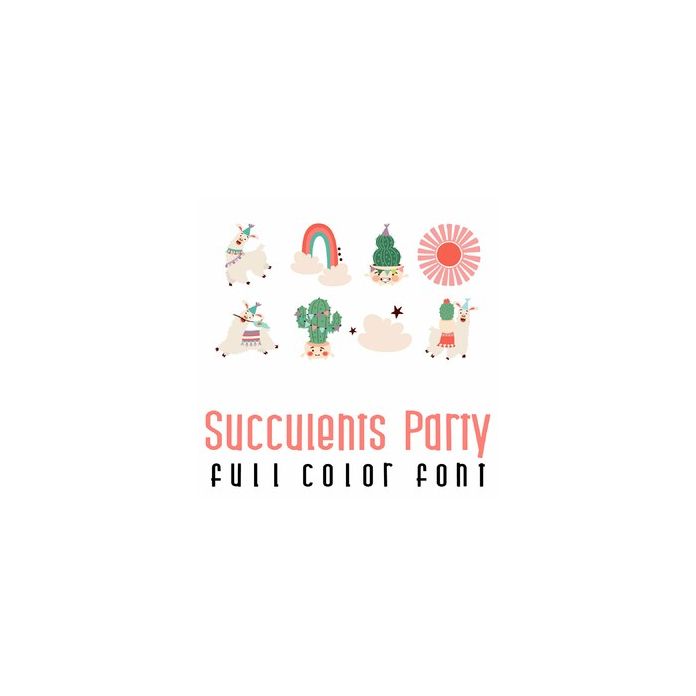
This adorable full-color doodlebat font features 26 cute llama and cacti ready for a celebration. Perfect for cards, crafts, gifts, decor, scrapbook pages, planner stickers, and more!